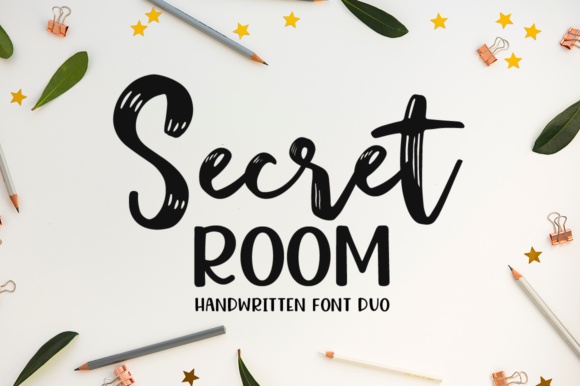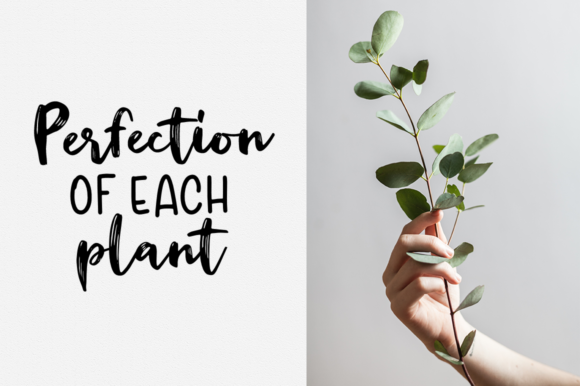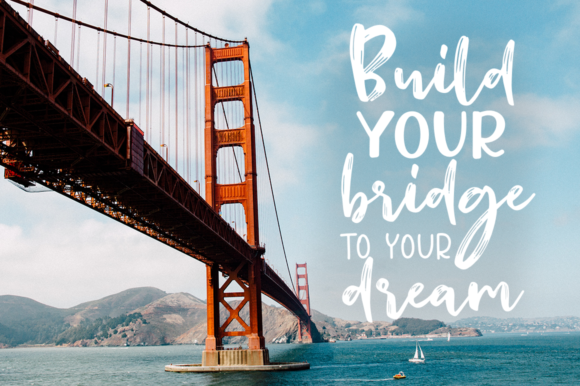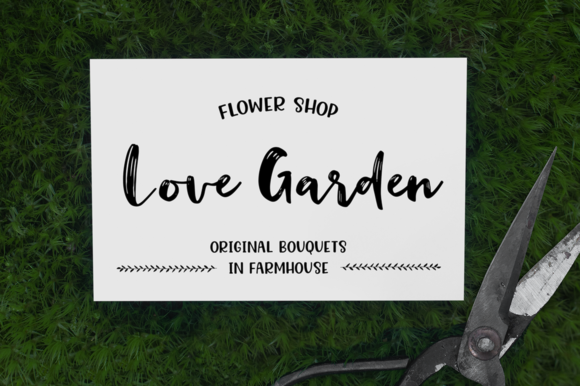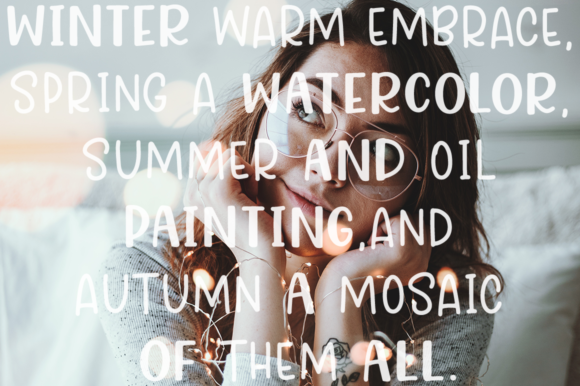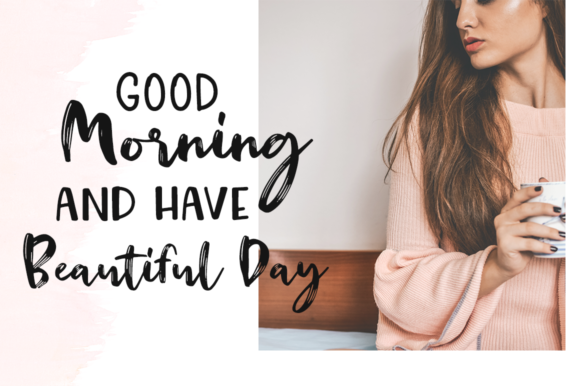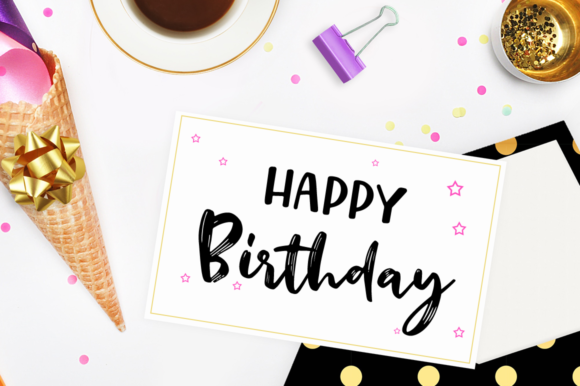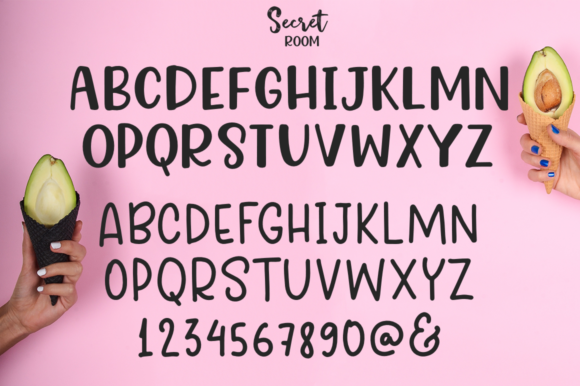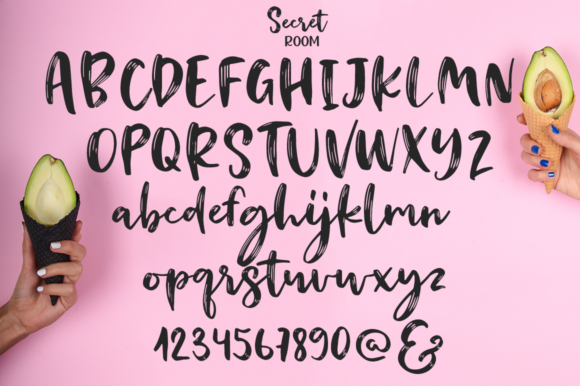
Secret Room Duo Font
About Secret Room Duo Font
The Secret Room is a striking font duo. It has a fun brush style which is perfect to add a playful touch to your design. Both style can be combined perfectly which gives you the opportunity to create multiple unique designs in an instant.
It can be used for wedding invitations. blogs, frames, book covers, stationary, marketing, and much more!